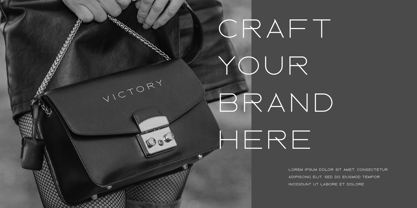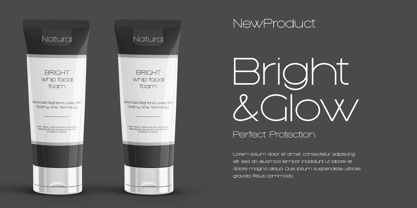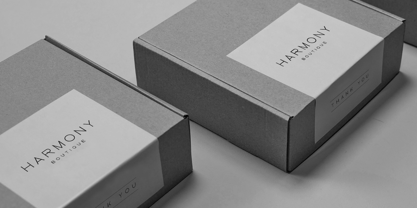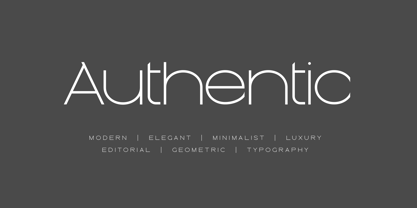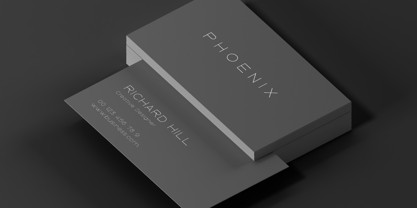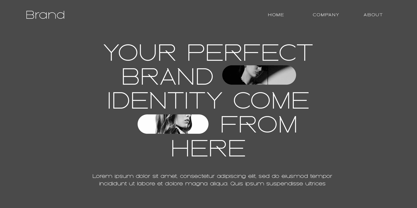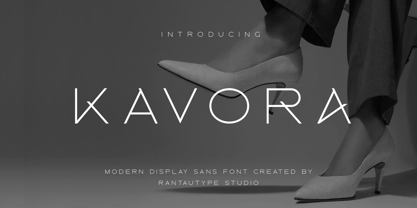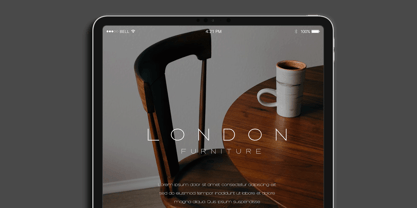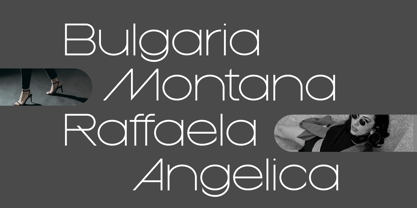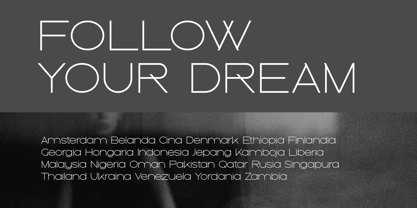
Kavora
The Kavora Font Family was designed by Yudi Pratama Chandra and published by RantauType. Kavora contains 1 styles.
Kavora is display sans serif font with modern and minimalist look. Kavora come with thin shape make your brand more elegant. Kavora is a perfectly choice for any creative endeavor, chic, lifestyle design such as logotype, advertisements, watermark on photography, stationery, branding project, display and magazine, invitation, corporate brand, product design, label, business project and many other project with modern or elegant touch.